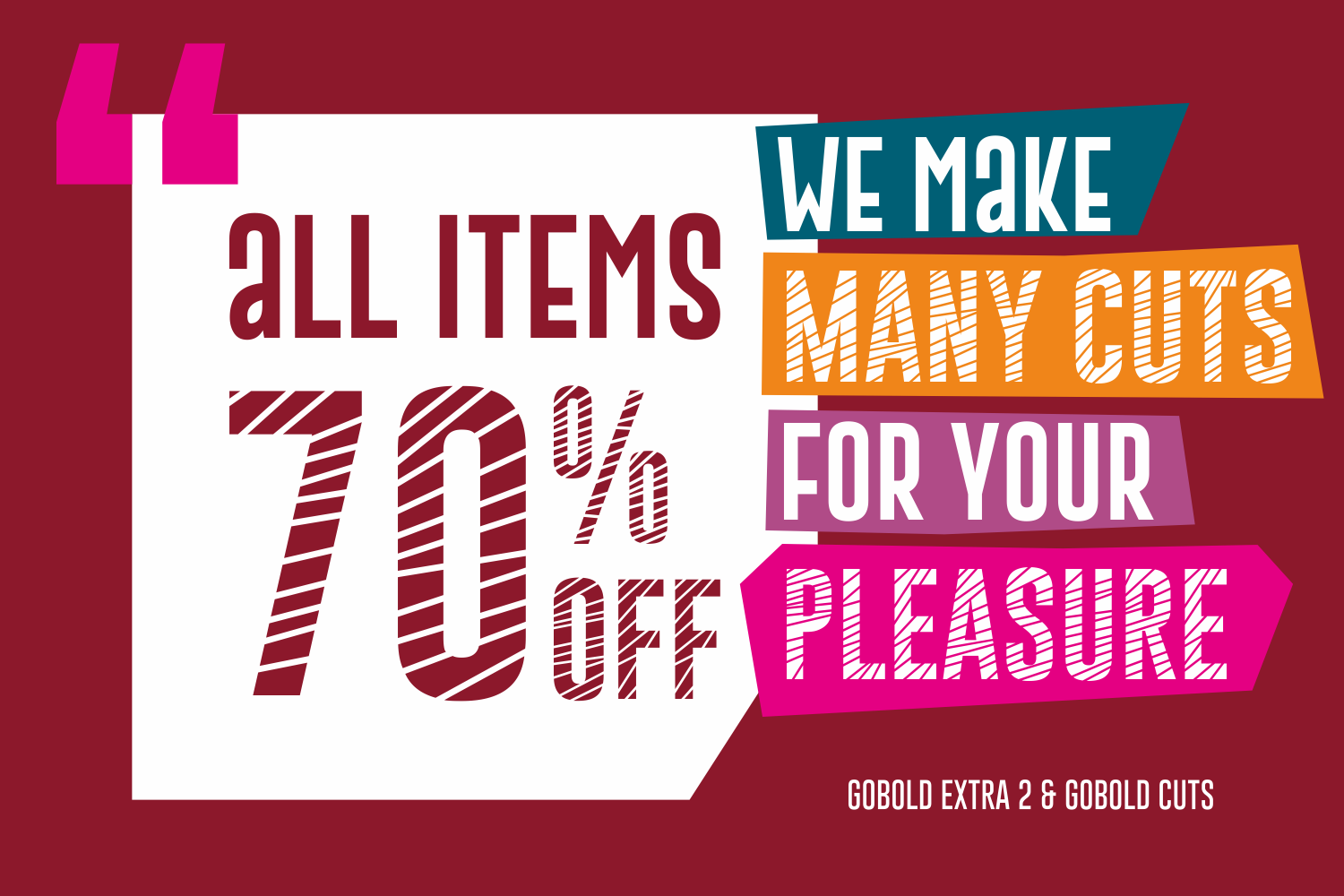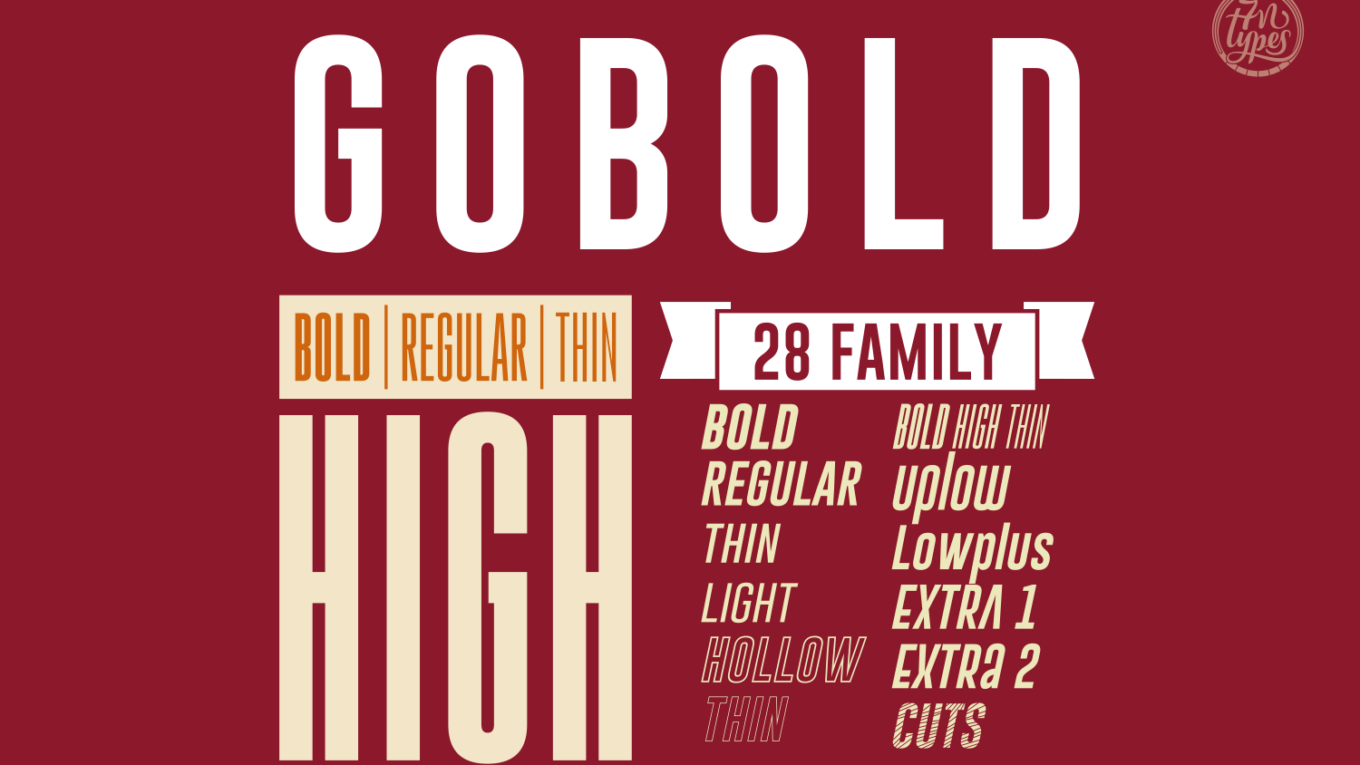
Gobold Font: Elevate Your Design with 28 Stunning Variations
In the world of typography, a font can make or break a design. For designers and crafters, finding the perfect font that embodies versatility, elegance, and precision can be a daunting task. However, if you’re looking for a game-changer, look no further than the Gobold Font. This stunning, sans serif family is packed with 28 variations, each carefully crafted to match the rest of the family, making Gobold an indispensable asset for any project.
The Power of Versatility: 28 Variations at Your Fingertips
What sets Gobold apart from other fonts is its impressive range of variations. With 28 different styles to choose from, you’re spoiled for choice. Whether you’re working on a corporate brand, a creative campaign, or a personal project, Gobold has got you covered. From subtle tweaks to dramatic transformations, each variation has been meticulously designed to ensure that every letter, every curve, and every line works in harmony with the others.
Key Features of Gobold Font
- 28 Variations: With such a wide range of styles, you’ll never run out of options. Whether you need a bold statement or a subtle nuance, Gobold has the perfect variation for you.
- Matching Family: Every variation is carefully crafted to match the rest of the family, ensuring that your text flows seamlessly and looks cohesive.
- San Serif Elegance: Gobold’s sans serif design exudes modernity and sophistication, making it perfect for projects that demand a clean and contemporary look.
- Highly Versatile: From headings and titles to body text and captions, Gobold is the ultimate multi-tasker.
Why Choose Gobold Font?
So, what makes Gobold an attractive choice for designers and crafters? Here are just a few compelling reasons:
- Time-Saving: With 28 variations at your disposal, you can experiment with different styles without having to search for multiple fonts.
- Consistency: Gobold’s matching family ensures that your text looks cohesive, even when using multiple variations.
- Creativity: The sheer range of variations inspires creativity, allowing you to push the boundaries of typography and explore new design possibilities.
Who Can Benefit from Gobold Font?
Gobold is an excellent addition to any designer’s or crafter’s toolkit, regardless of the project or industry. Here are some examples:
- Graphic Designers: Gobold is perfect for branding, advertising, and marketing materials that require a professional, high-end look.
- Web Designers: The font’s clean, sans serif design makes it ideal for digital projects, including websites, apps, and mobile interfaces.
- Crafters and Makers: Gobold can add a touch of sophistication to handmade products, such as crafts, jewelry, or art pieces.
In conclusion, Gobold Font is a stunning, versatile sans serif family that offers 28 variations to elevate your design. With its matching family, elegant design, and high versatility, Gobold is an indispensable asset for designers and crafters. Whether you’re working on a corporate project or a personal creative endeavor, Gobold is the perfect choice for those who demand precision, elegance, and creativity.